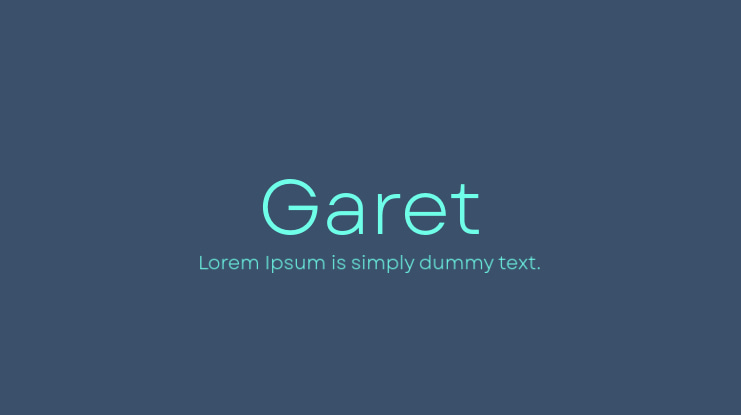
Garet Font Family
Stan Partalev, Mirela Belova
???? We are happy to introduce Garet, our latest typeface!
It is geometric sans with clean and soft letterforms and a smooth masculine tone. Garet type family consists of 11 weights ranging from quite thin to extremely fat and their corresponding Italics. Plus one variable font that combines all weights in one file. ????️️And of course, all of it is perfected by a broad number of OpenType features and extended language support.